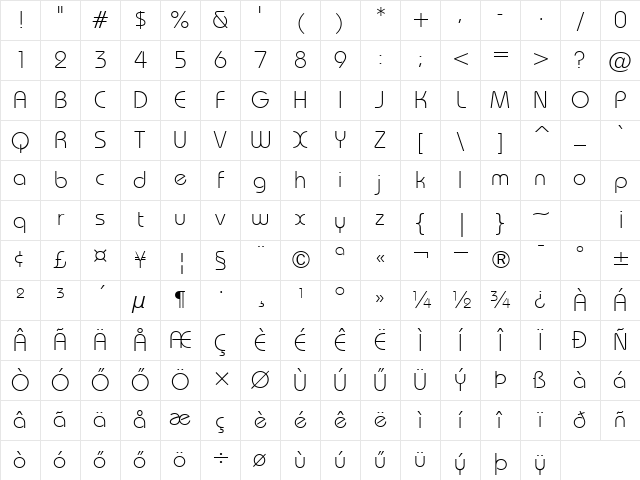
H_Bauhaus Light BT Regular
Design Context for H_Bauhaus Light BT
H_Bauhaus Light BT is a composed and adaptable typeface that performs quietly and consistently across a wide range of design contexts. Its slender proportions lend an understated elegance to any composition.